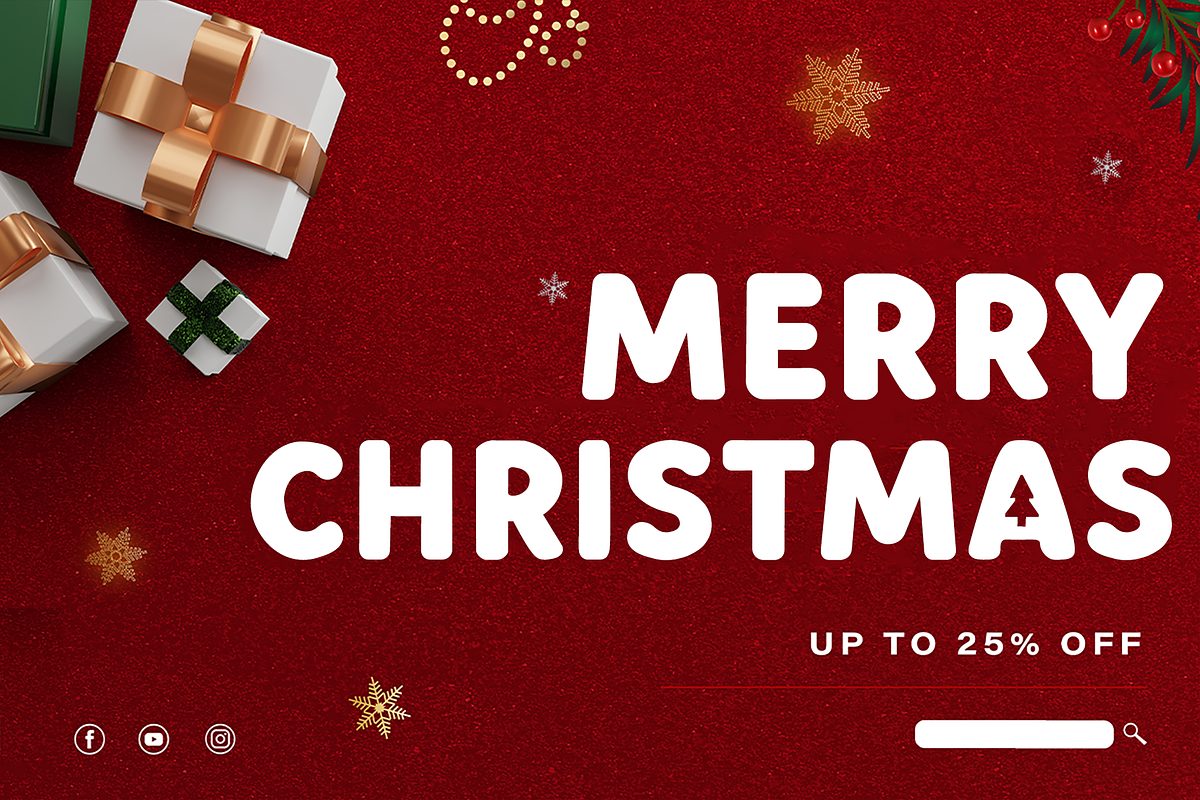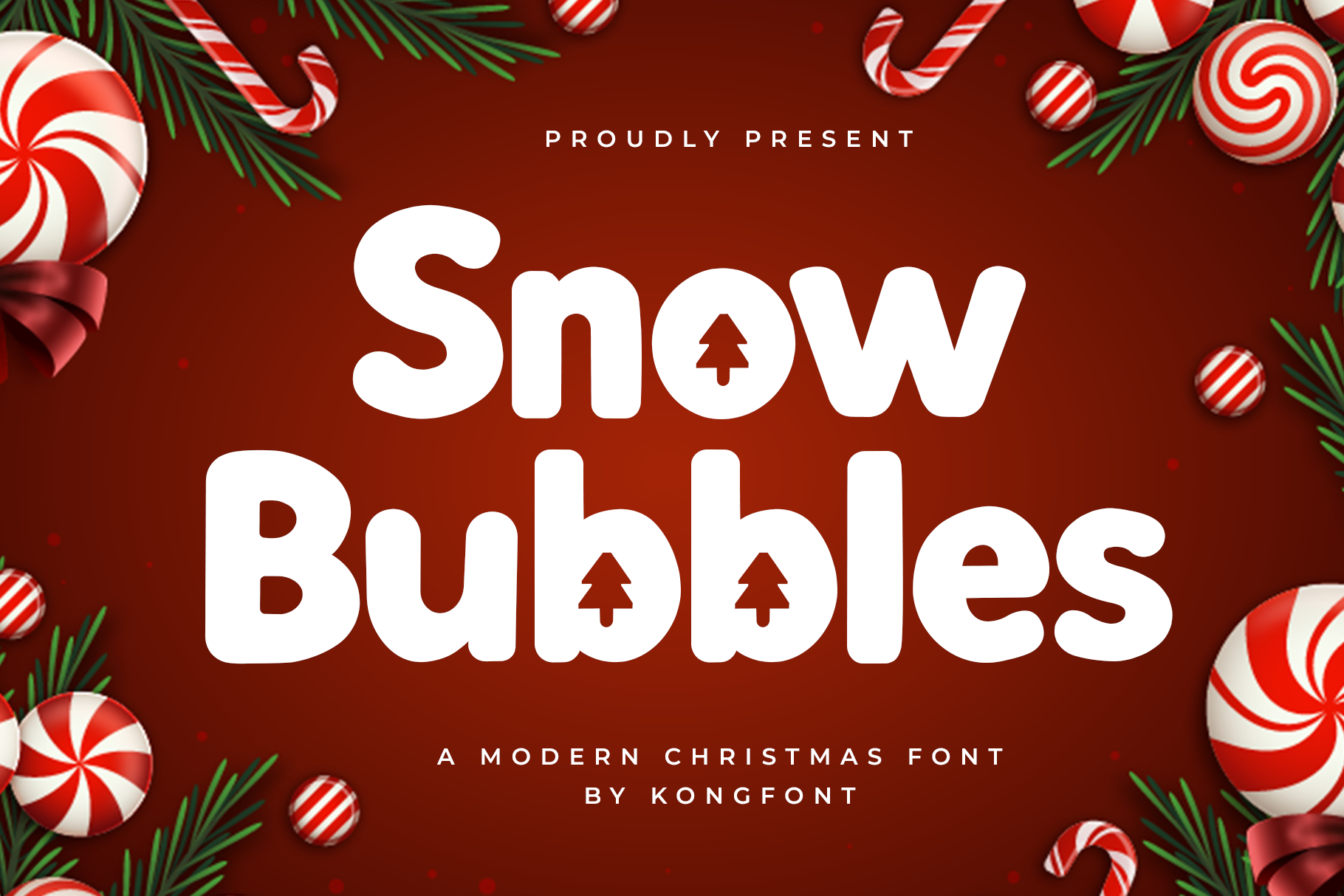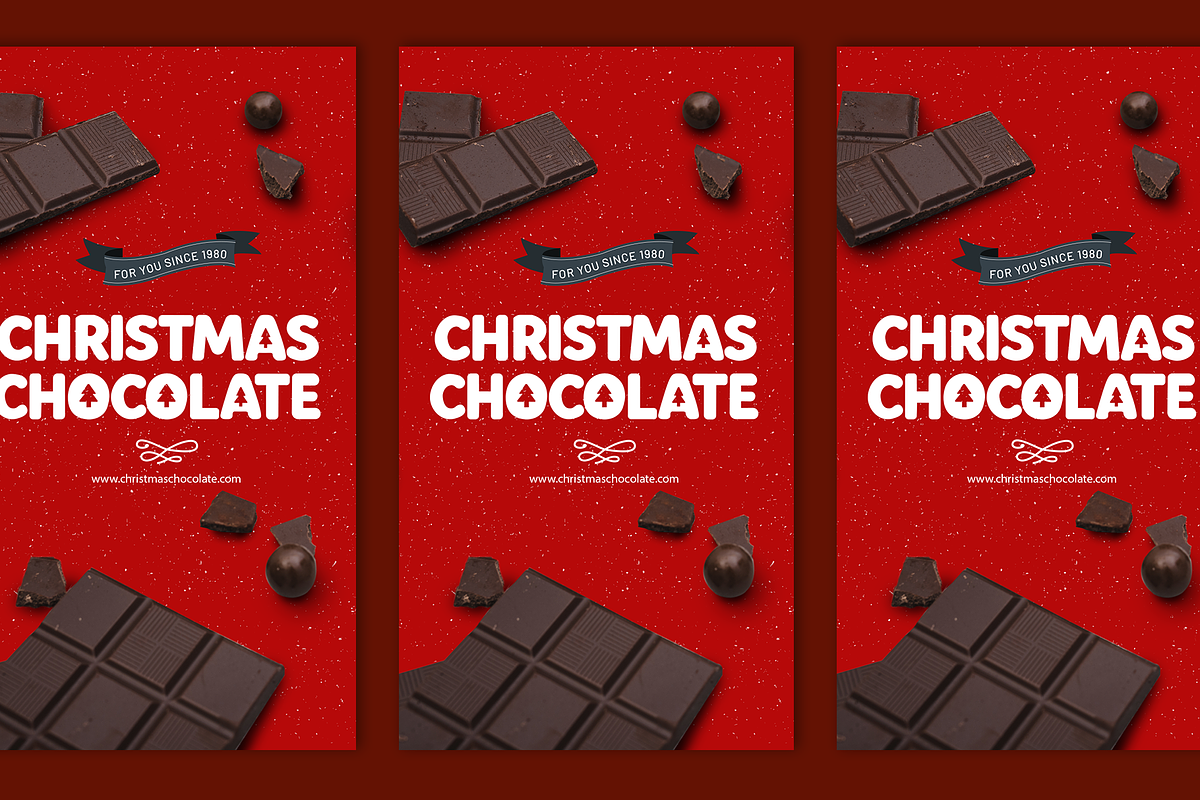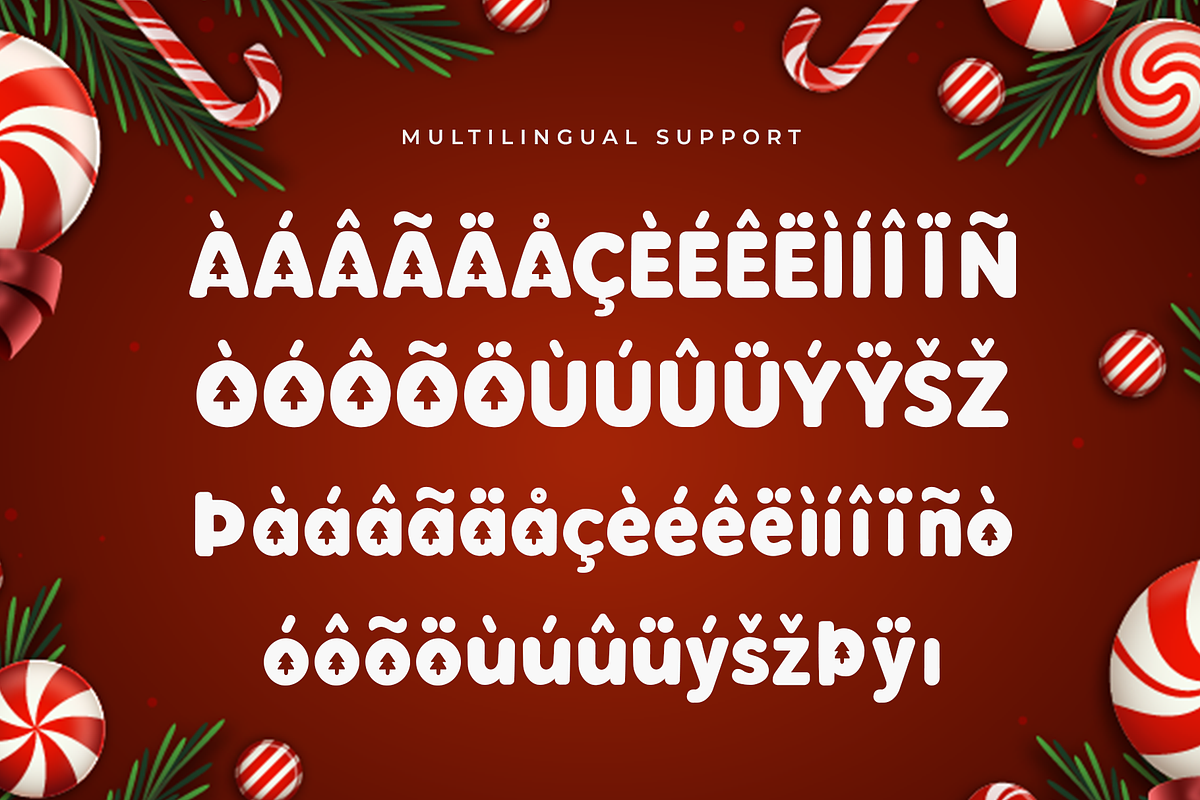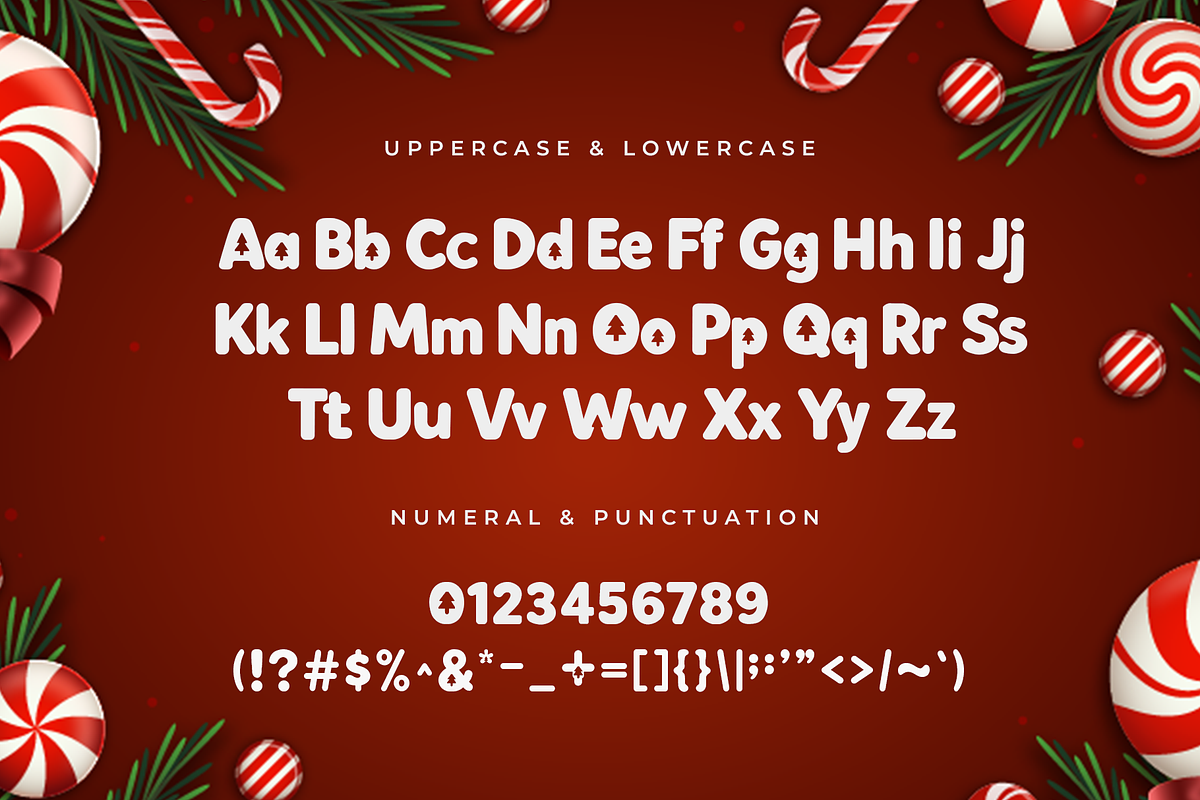
Snow Bubbles - Modern Christmas Font
Introducing Snow Bubbles, a modern Christmas font crafted to bring joyful winter magic to your festive projects. Featuring rounded, bubbly letterforms adorned with subtle snowy accents, this typeface captures the warmth and playfulness of the holiday season in a fun and contemporary style.
Perfect for Christmas cards, gift tags, children’s books, stickers, apparel prints, invitations, social media posts, product packaging, and festive branding, Snow Bubbles instantly adds a touch of charm and celebration. Its friendly forms and soft shapes make every design feel cozy, cheerful, and full of seasonal delight.